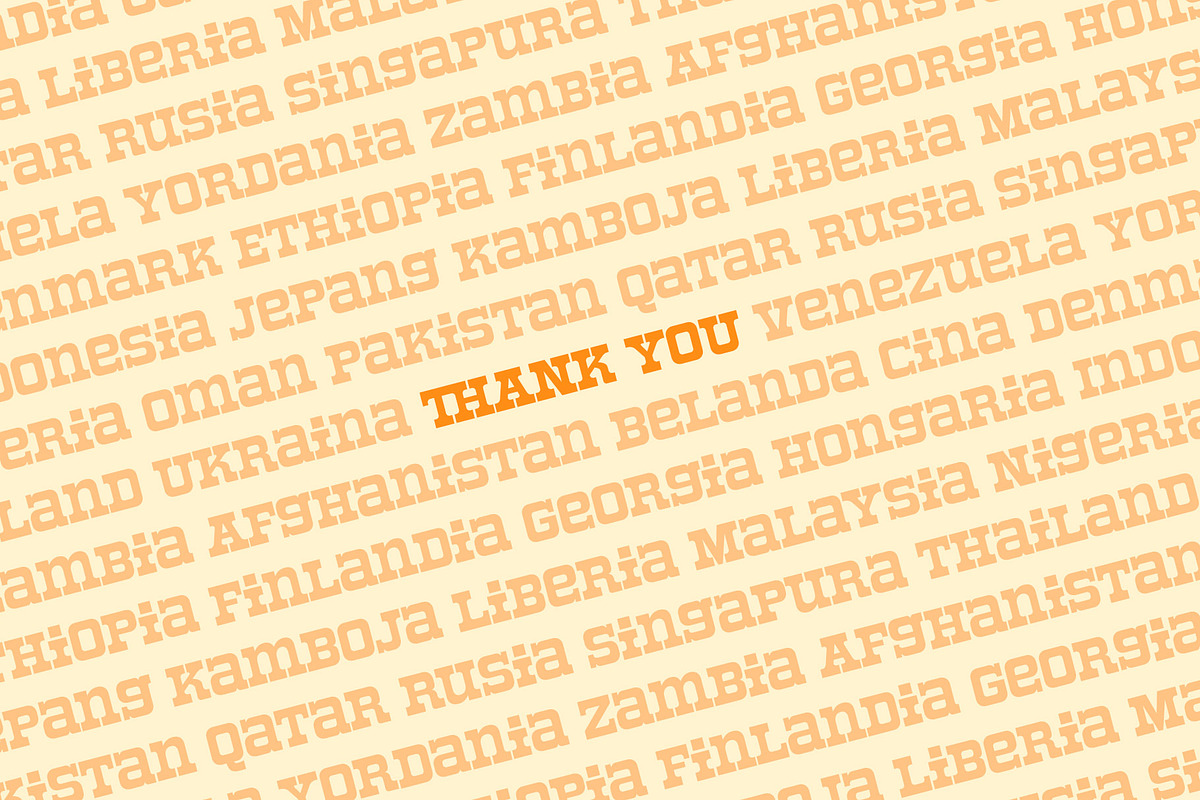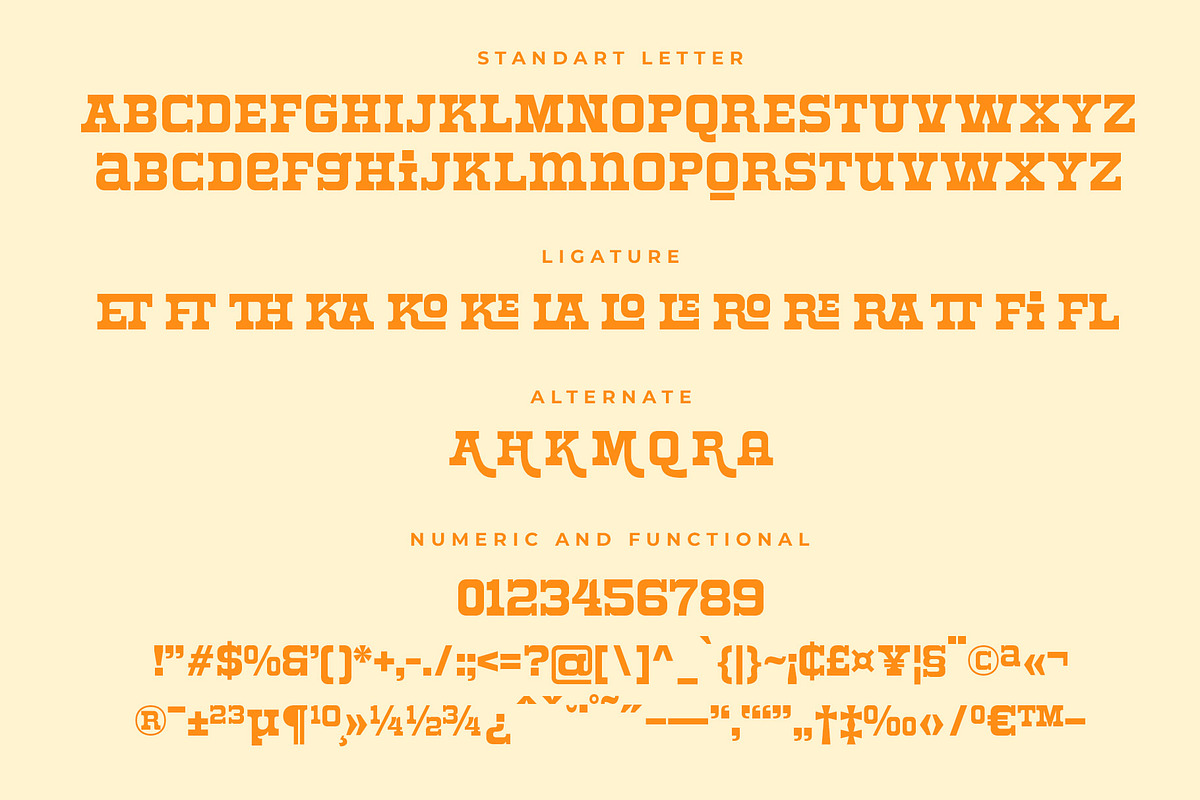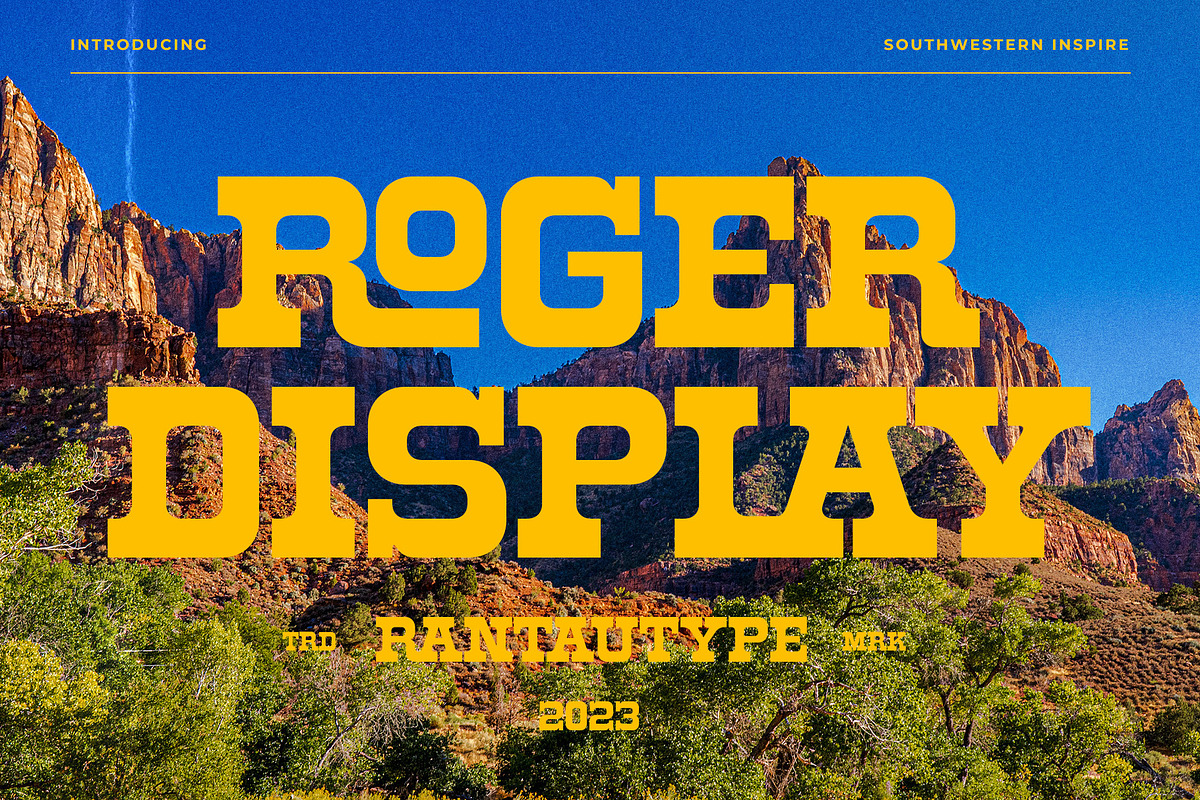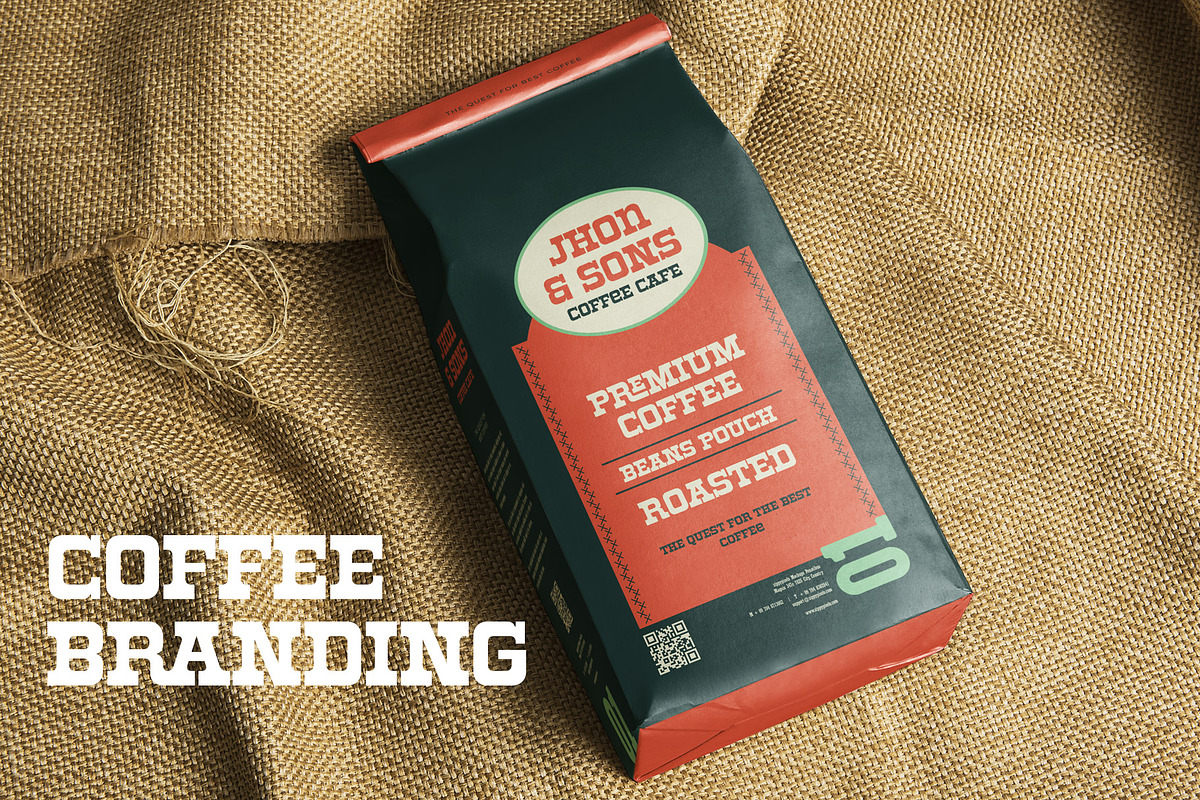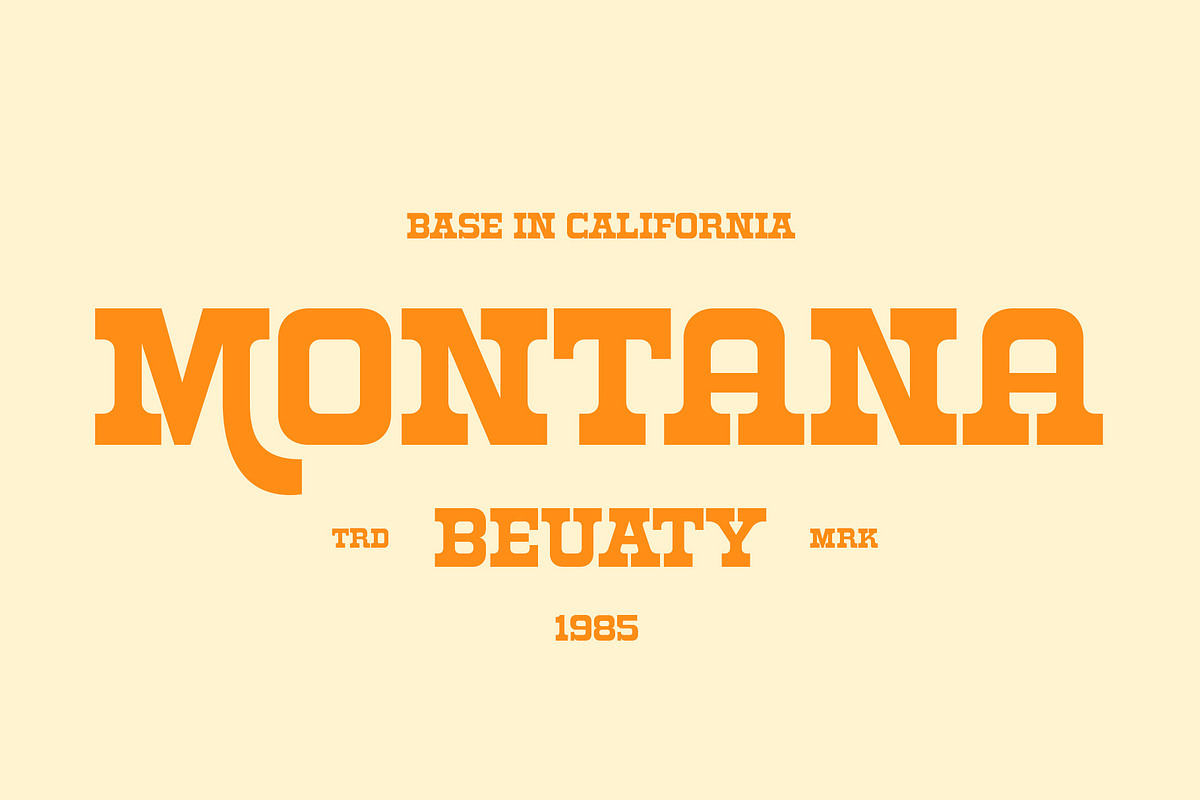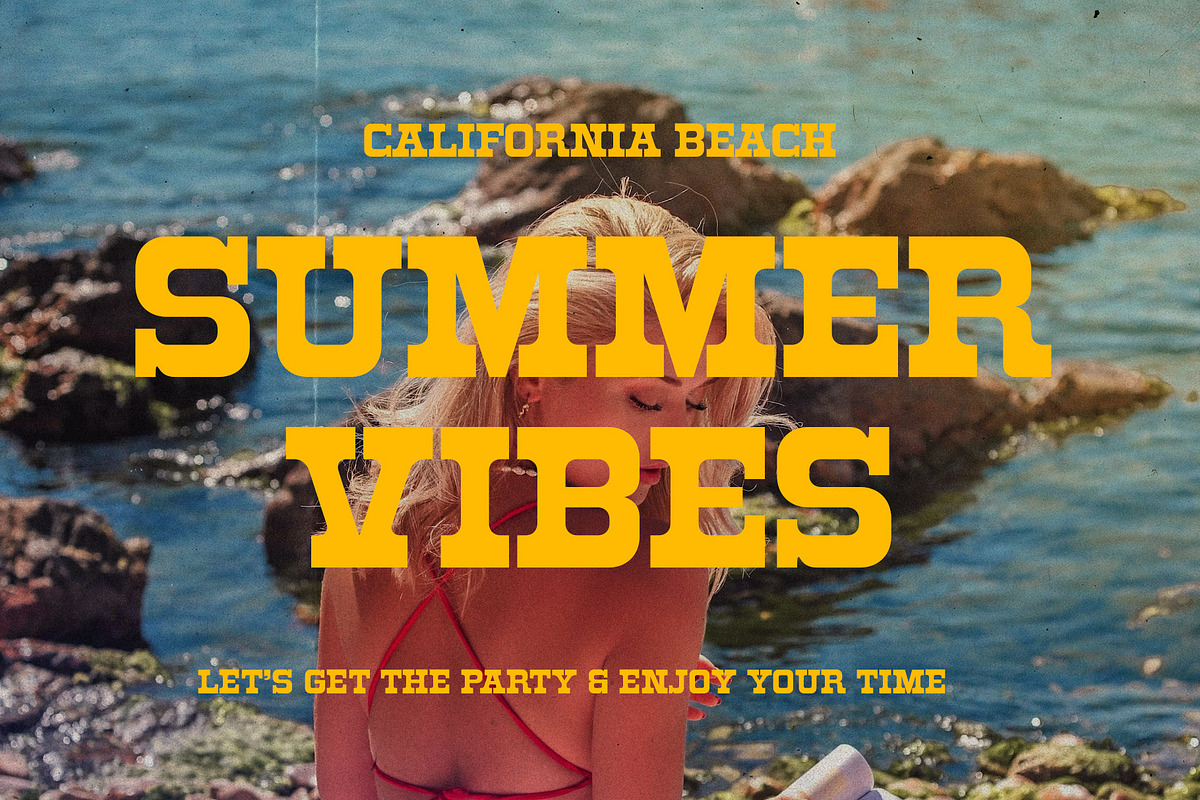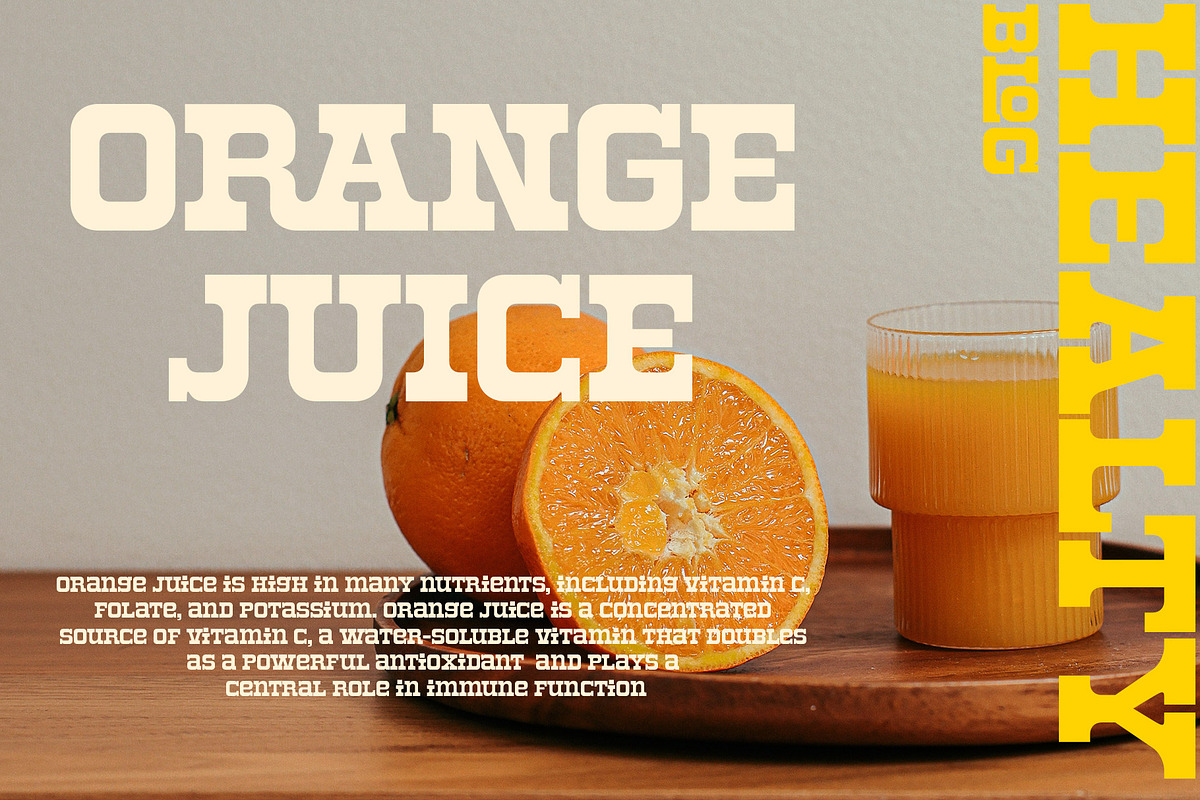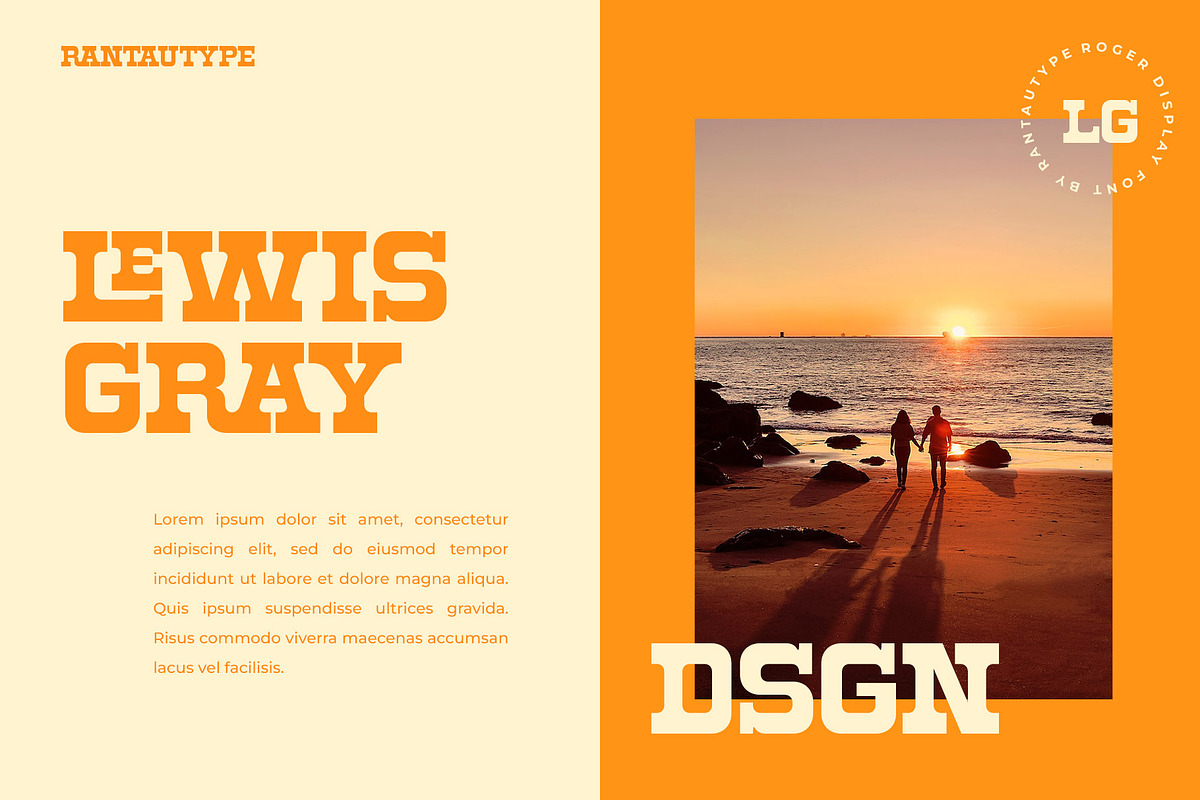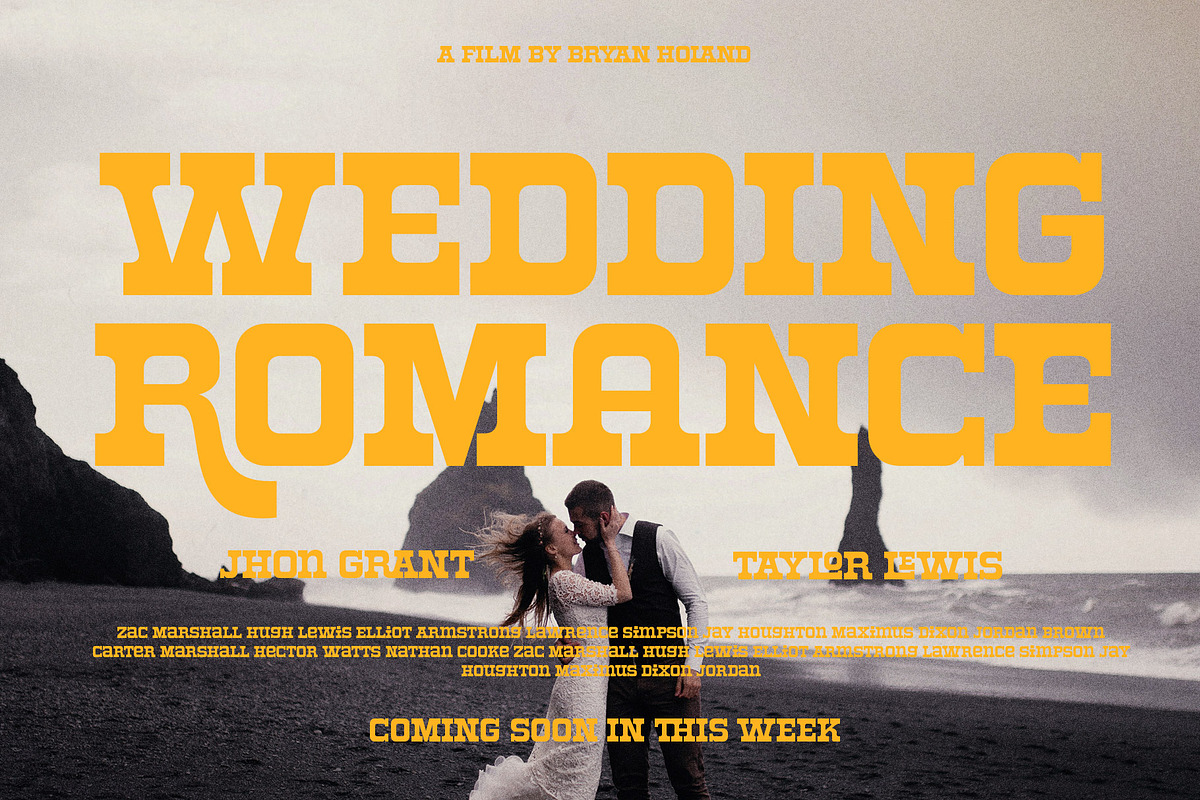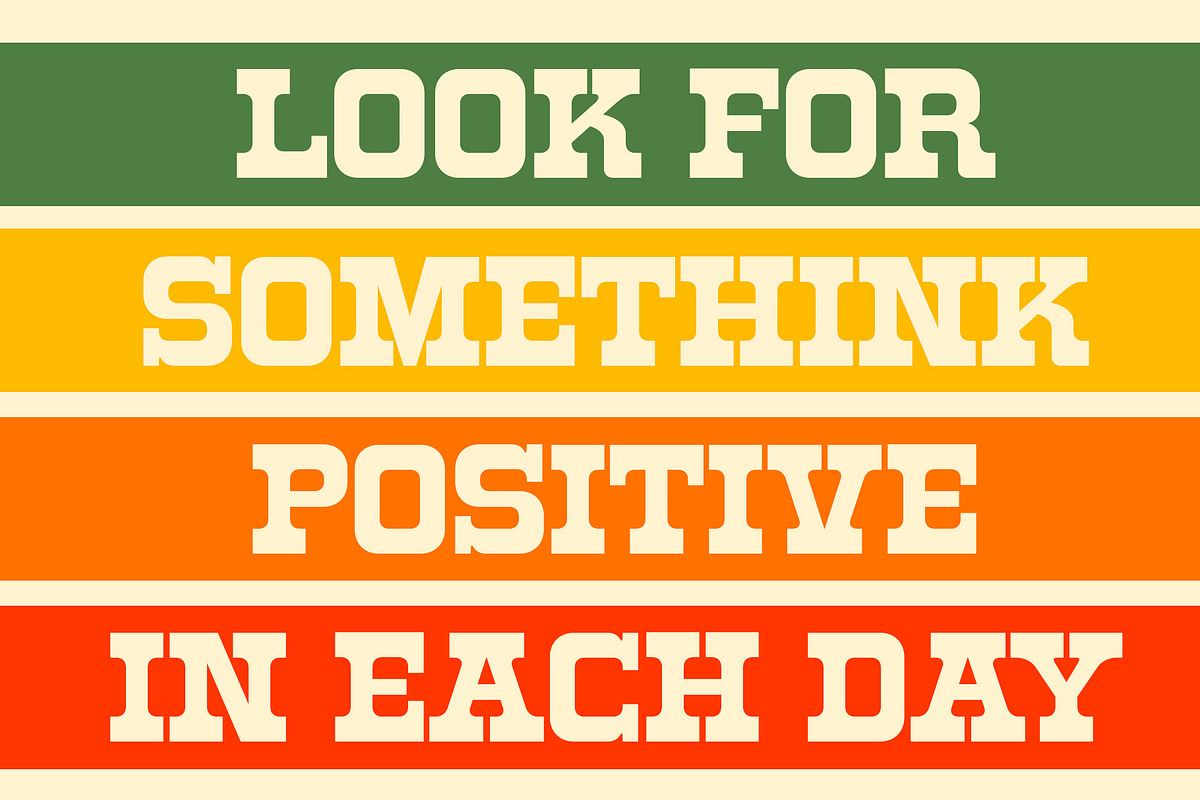
Roger Display Retro Western Font
Hi Ladies and Gentleman ! Proudly present retro fun look font called Roger Display by rantautype.
Roger Display is beautiful display typeface inspired by midcentury southwestern type we keep this font look retro but modern. Roger display come with more alternate and ligature to make it more option design. This fun font can be use for retro and modern design. Roger display support dozens of languages which use the Latin and Greek alphabets.
Roger Display - separate in reguler and italic, is a beautiful choice for any creative endeavor, creating fun, modern, chic, lifestyle design such as logos, title, cover, branding, display and magazine, and more. Now you have more choice when using Roger Display to make amazing design.
- Standart character A-Z and a-z
- Numberial and Functional Alternate and Ligature Multilinggual support